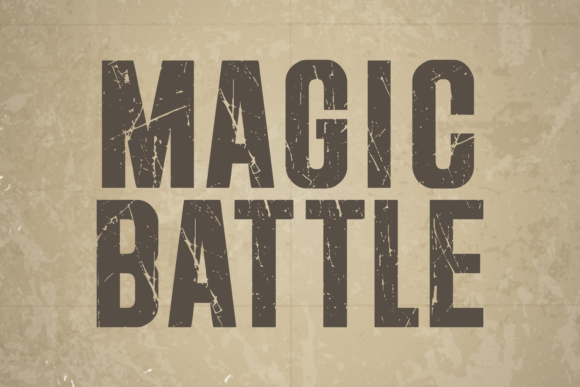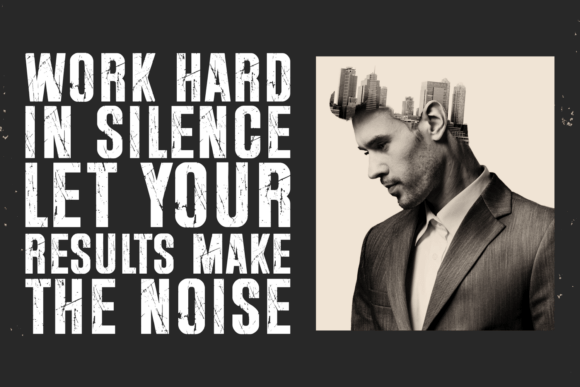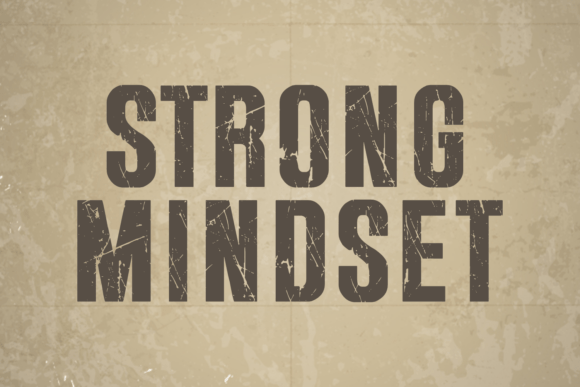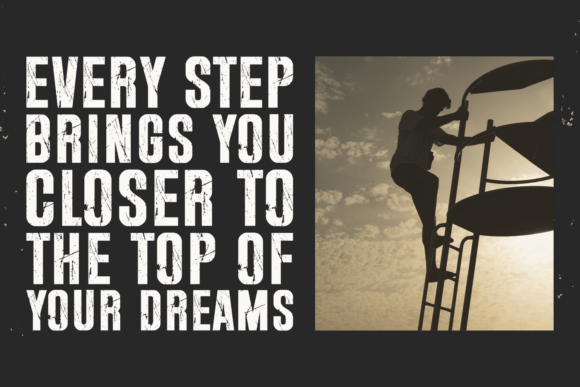
Magic Battle Font: A Bold Display Font for Gritty Posters
About the Magic Battle Font
The Magic Battle Font is here to transform your projects with its distinctive character and style. Magic Battle is a bold, distressed display font that demands attention. Featuring rugged textures and a weathered, battle-worn aesthetic, this typeface evokes strength, resilience, and power. Perfect for military-themed projects, fantasy game titles, gritty posters, or survival-themed branding, Magic Battle blends raw impact with vintage appeal. Its tall, blocky letterforms ensure maximum readability while the scratchy surface adds character and edge.
Magic Battle excels in large-scale applications such as headlines, posters, and branding for products emphasizing strength and ruggedness. Its distressed texture works particularly well for limited-edition packaging or event promotions. Avoid using it for body copy or UI elements; the texture and weight compromise readability in smaller sizes or continuous text.
Pairing Magic Battle with a clean sans-serif like Futura for supporting text creates a strong contrast, balancing its aggressive texture with a sense of modern clarity. Alternatively, a classic serif like Garamond could provide a sophisticated counterpoint, highlighting the font’s vintage appeal.
The font’s core personality is bold and rebellious, ideal for projects that demand immediate visual impact and communicate a sense of power or grit. Consider it for brands targeting a masculine demographic or conveying themes of adventure, survival, or military history.
Magic Battle Font Usage Examples
Magic Battle Font Example